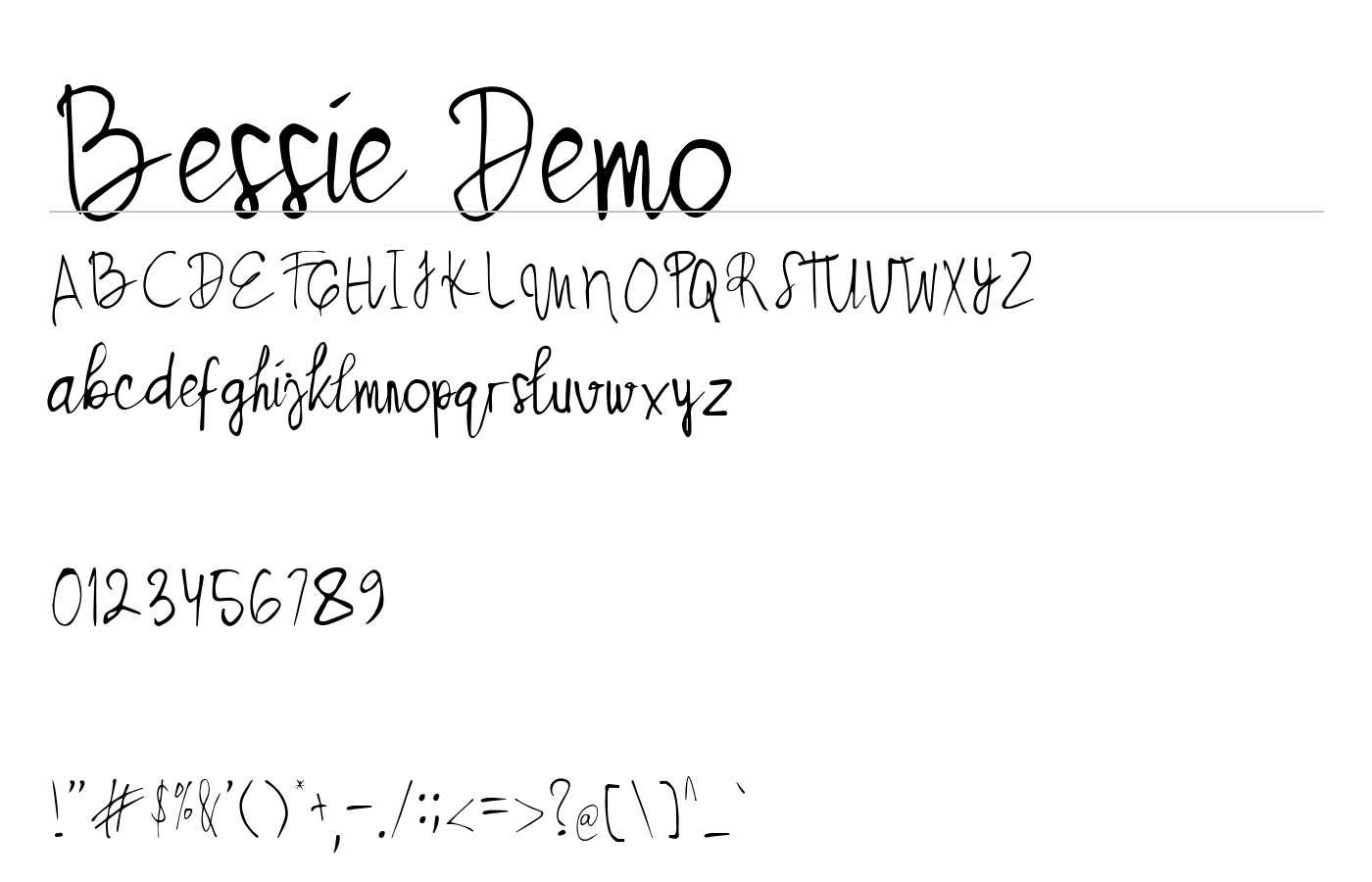
Bessie Demo is a casual, handwritten script font with a playful and organic feel. Its thin, irregular strokes and tall, narrow letterforms create a light, airy texture that conveys friendliness and creativity. This font works well for informal branding, personal projects, and artistic designs where a relaxed and approachable style is desired.
Bessie Demo Font
About Bessie Demo Font